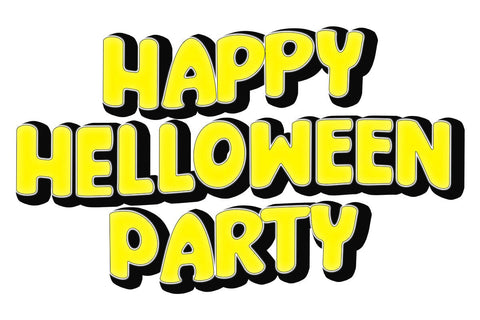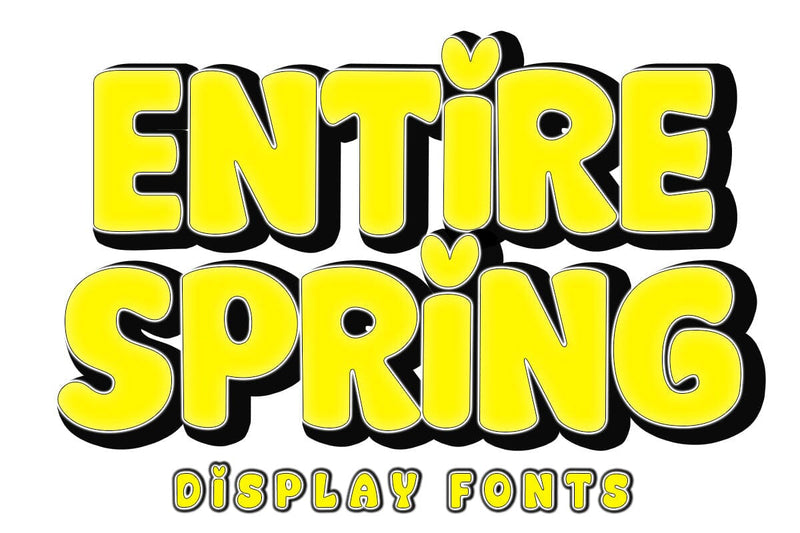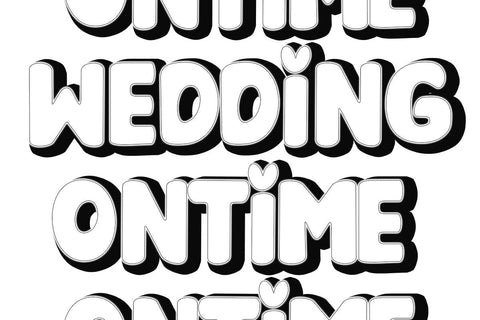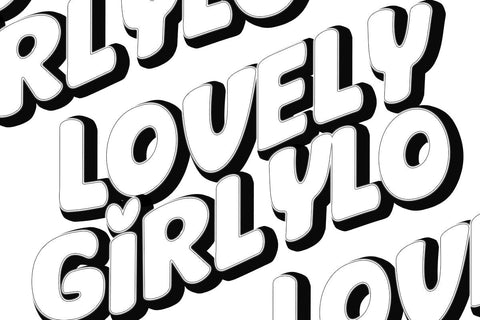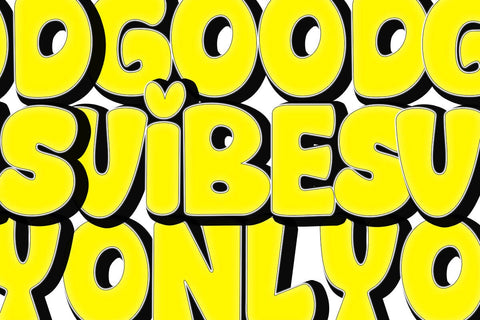
Entire Spring Font
Entire Spring is a cheerful and bold display font, inspired by cartoon styles and playful character designs. Its bold, condensed letterforms with bold outlines create a playful and dynamic feel, making it perfect for children’s projects, comic titles, posters, games, and merchandise. With its bold personality, Kong Bold immediately catches the eye and adds a playful touch to any design.
Whether you’re designing a logo, packaging, or colorful social media graphics, Kong Bold will add a playful touch to your project. Its versatile style makes it easy to use for both print and digital applications, ensuring your designs remain bold, friendly, and full of life.